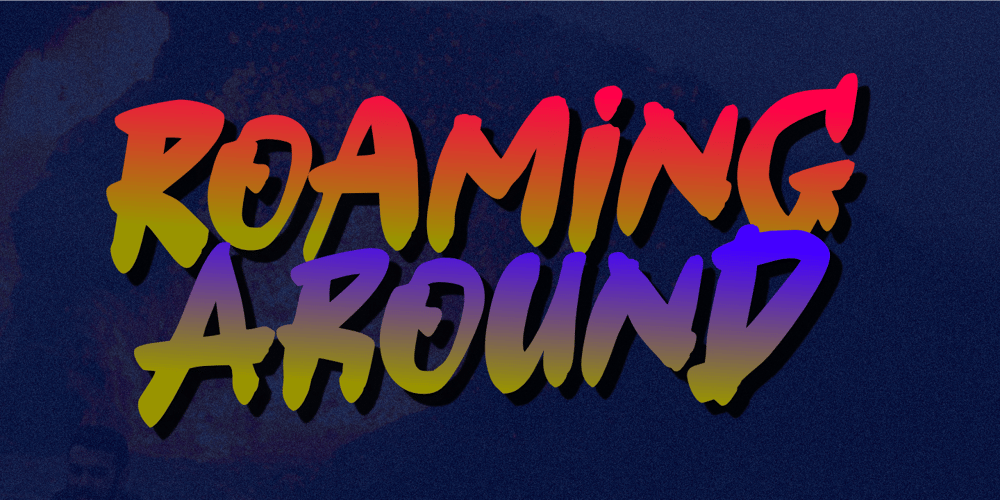
Roaming Around Font Family was designed by Nurul Hidayani and published by Olivetype. Roaming Around contains 1 styles and family package options. Roaming Around is a typeface that is perfect for any design project. With its graffiti-inspired style, it’s guaranteed to give your designs a hand-painted, stand-out feel. Fight the monotony of clean fonts by giving your designs true character with Roaming Around.So what’s included : Basic Latin Uppercase and Lowercase Numbers, symbols, and punctuations Ligatures Multilingual Support. PUA Encoded and fully accessible without additional design software Simple Installations works on PC & Mac Thank You and Happy Designing!